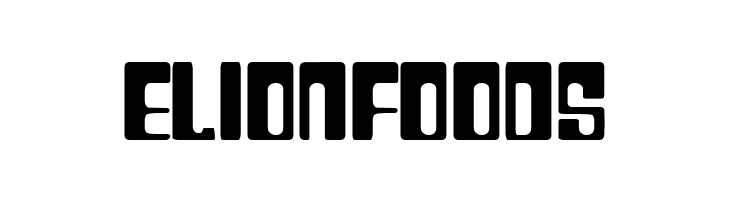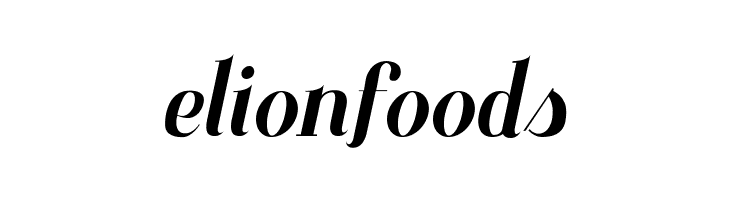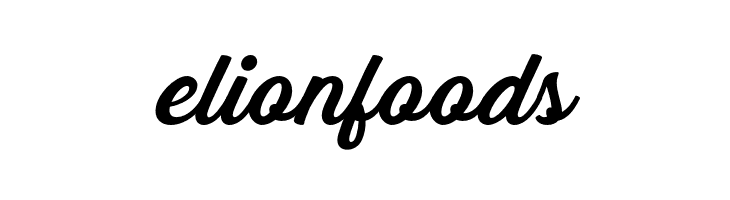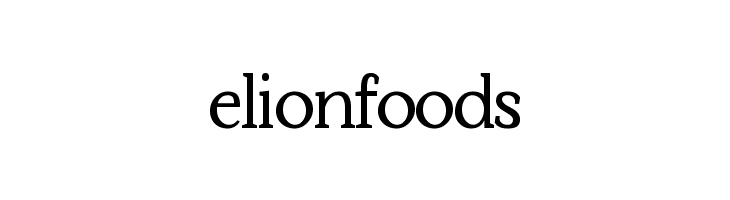
League Spartan Regular Font
A bold, modern sans-serif font with clean, geometric lines.
Katahdin Round Font
A bold, rounded sans-serif font with smooth curves and uniform stroke width.
Arial Narrow 7 Font
A modern, narrow sans-serif font with a clean and professional look.
Extra Old PERSONAL USE Regular Font
A bold, serif font with strong strokes and classic elegance.
GrandAventure Font
A bold, flowing script font with elegant, connected letterforms.
Libre Barcode 128 Text Regular Font
A barcode-inspired font with high contrast and tight spacing, ideal for modern and technical designs.
Light LED Board-7 Font
A dot-matrix style font that resembles an LED display, offering a digital and modern look.
Fool For Love Font
A playful, heart-embellished font with clean lines and a modern feel.
Modern Sans Serif 7 Font
PlakatFraktur Font
A bold and ornate Blackletter font with high contrast and intricate details.
Fool's Errand Font
A modern, rounded sans-serif font with smooth curves and balanced spacing.
Sporting Grotesque Font
Analog Script Clean PERSONAL Personal Font
A bold, elegant script font with smooth, connected strokes.
Sporting Grotesque Bold Font
A bold, modern typeface with clean lines and strong presence.
On My Way Font
Bold, casual handwritten script font.
Malandrino Bold Font
A playful, rounded font with smooth curves and consistent stroke width.
LT Energy CYR Bold Font
A bold, modern font with strong geometric shapes and a uniform appearance.
Light LED Display-7 Font
A dot-matrix style font emulating LED displays with a modern, digital look.
Lavender Lime Font
A playful, hand-drawn font with a whimsical and friendly style.
Kraskario Font
A classic serif font with elegant strokes and balanced readability.